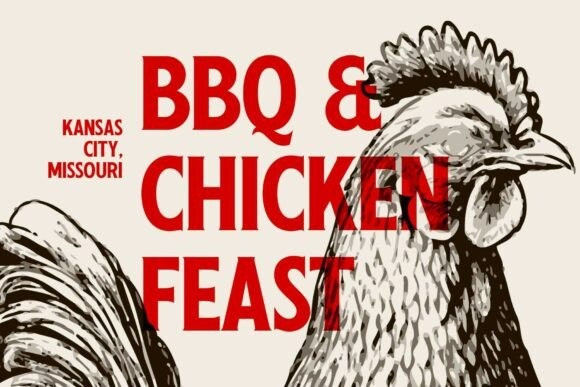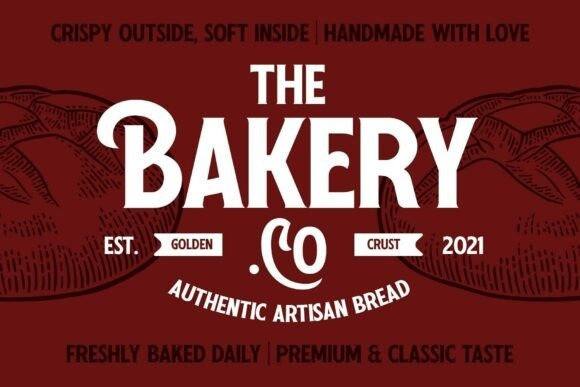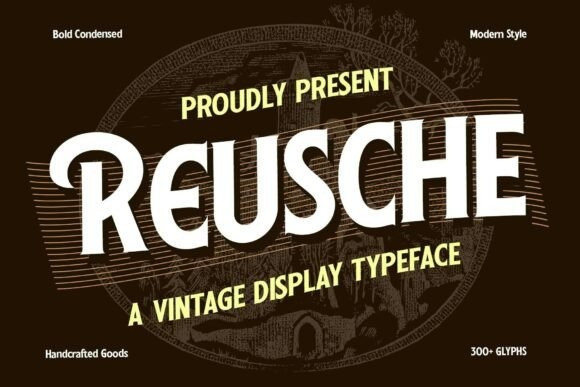
Reusche Font
Reuche Font is a bold vintage typeface designed to infuse your projects with nostalgic charm and rugged character. Drawing inspiration from classic sign painting, old-school packaging, and retro Americana, Reuche is built to make a statement. Its strong letterforms and beautifully crafted swashes capture the warmth and authenticity of a bygone era, making it the perfect choice for logos, labels, posters, and any design needing a touch of timeless grit. Reuche is ready to elevate your next branding project with its distinct, handcrafted soul.